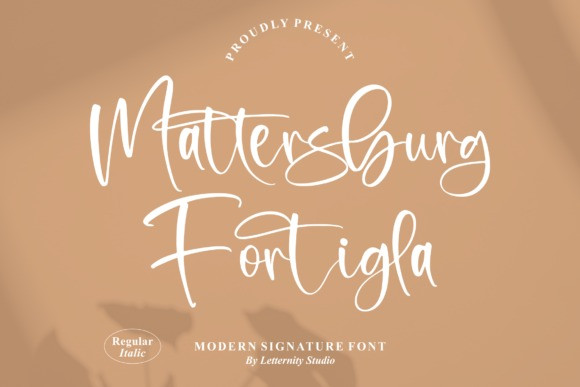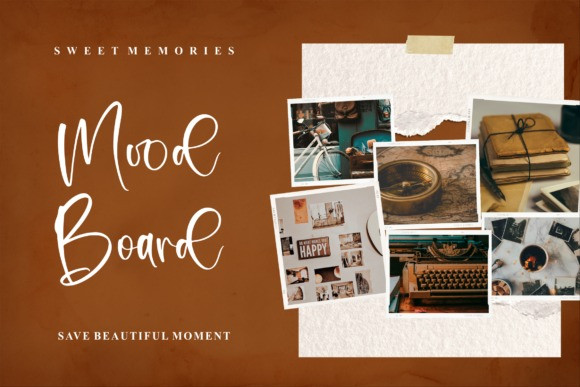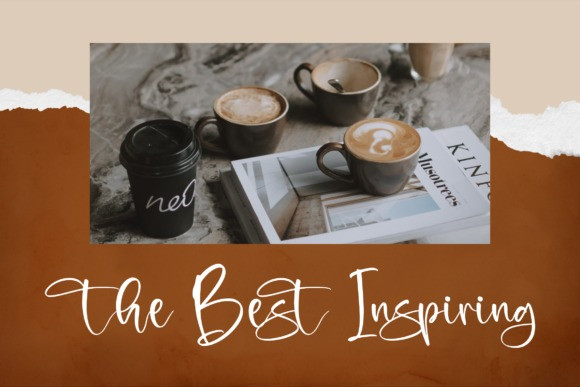
Mattersburg Fortigla Font
Mattersburg Fortigla is a sweet and subtle handwritten font that is crafted with great care for maximum results. It will add elegance and class to any of your design projects.